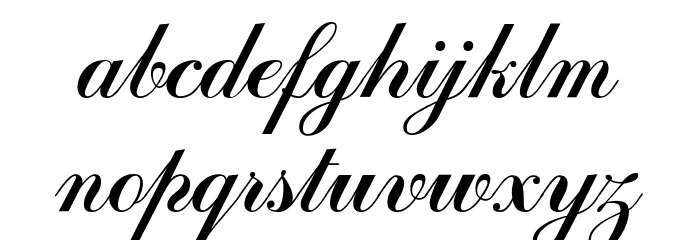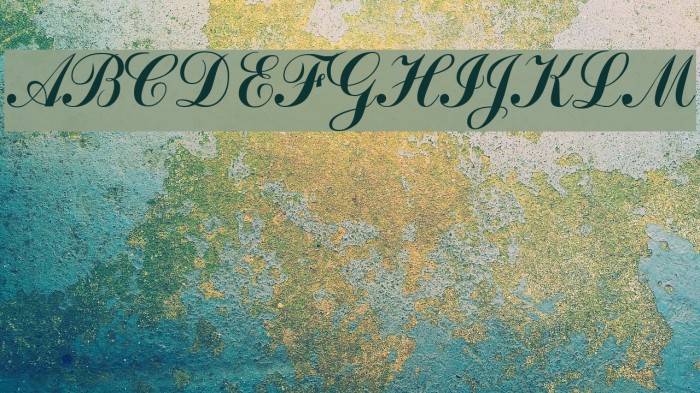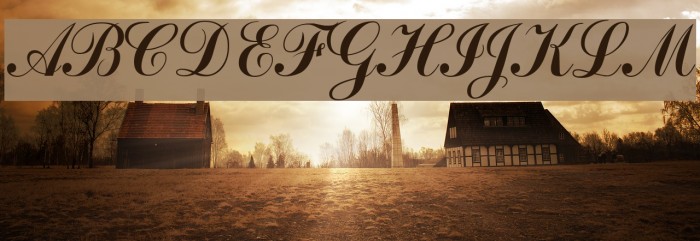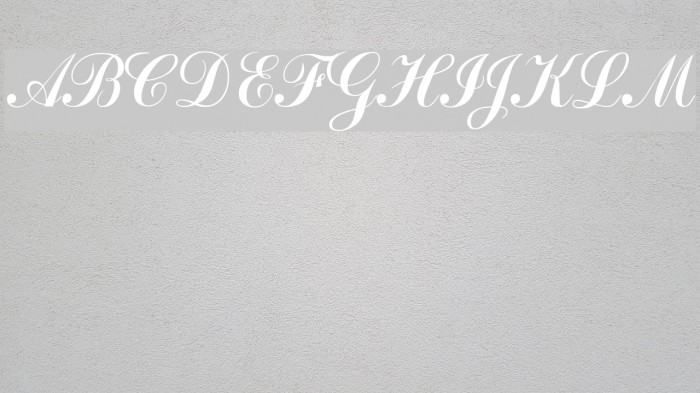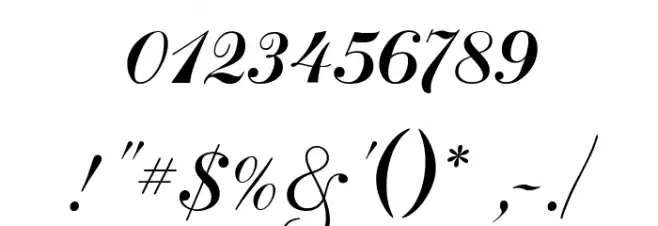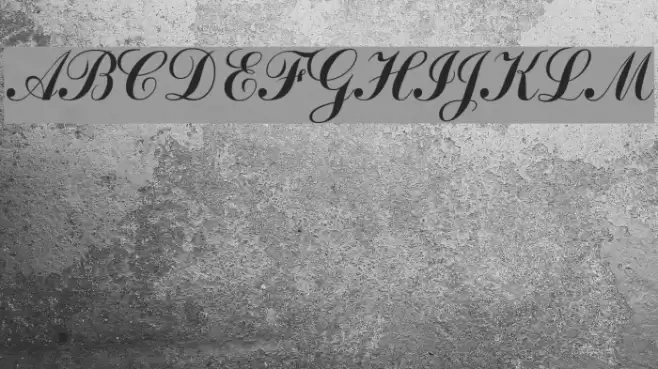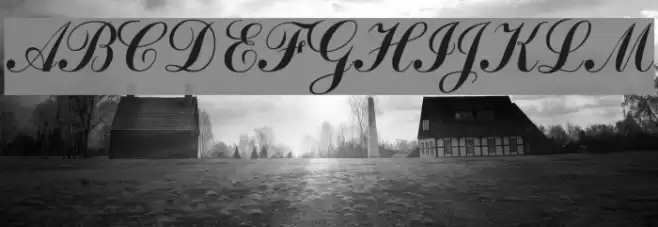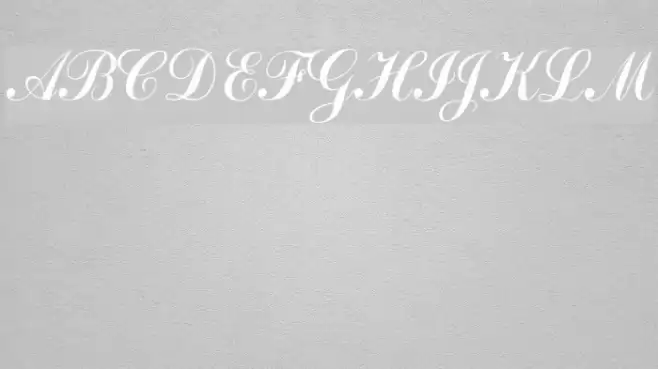
Bulgarian Kursiv Font
This elegant script font features a sophisticated and flowing design, characterized by its cursive style with high contrast between thick and thin strokes. The uppercase letters exhibit graceful loops and flourishes, while the lowercase letters maintain a consistent slant, enhancing the font's fluidity. The numerals and special characters are designed with the same attention to detail, ensuring a harmonious appearance across all text. This font's ornate style makes it suitable for formal and decorative applications.
An elegant script font with flowing cursive strokes and high contrast.
- Proposed Projects: Ideal for wedding invitations, elegant branding, luxury product packaging, and decorative headlines.